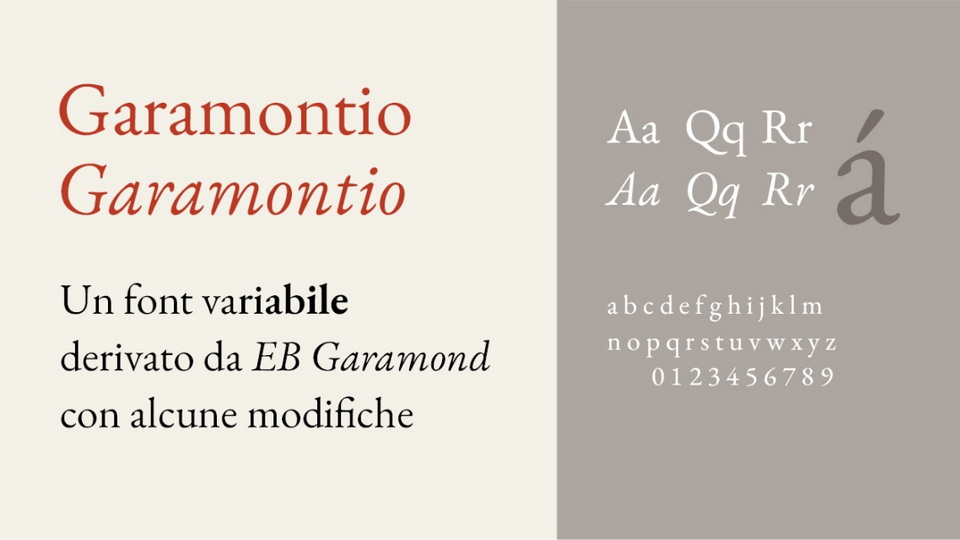
Download Garamontio font, a refined variable serif typeface based on the classic elegance of EB Garamond. This versatile typeface maintains the timeless beauty and readability of the original Garamond design.
Designer: Michele Casanova